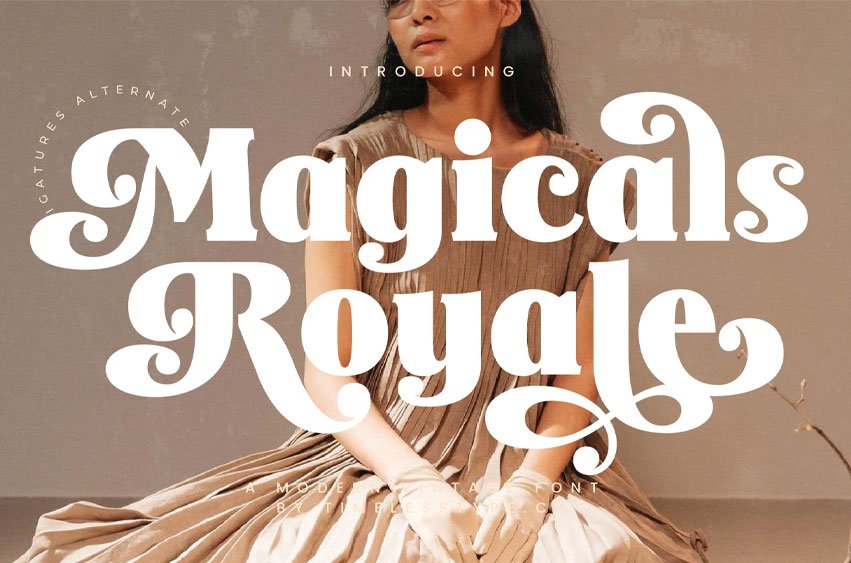
Magicals Royale Font is a modern vintage serif font with bold strokes and ornamental swashes, designed to bring elegance and luxury into your projects. Featuring stylish ligatures and creative alternates, this typeface is perfect for logos, posters, invitations, packaging, branding, and editorial layouts.
Its timeless charm and refined details make Magicals Royale a versatile choice for both digital and print designs, delivering sophistication and creativity to every design.